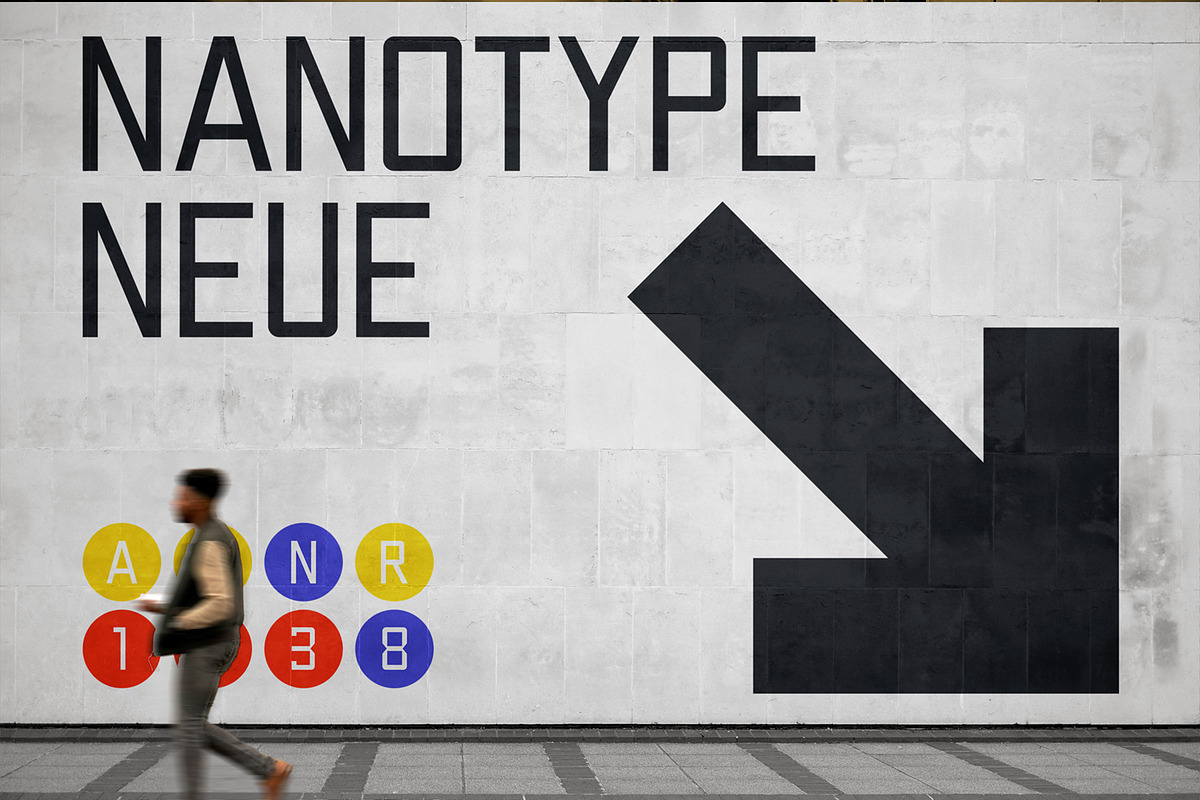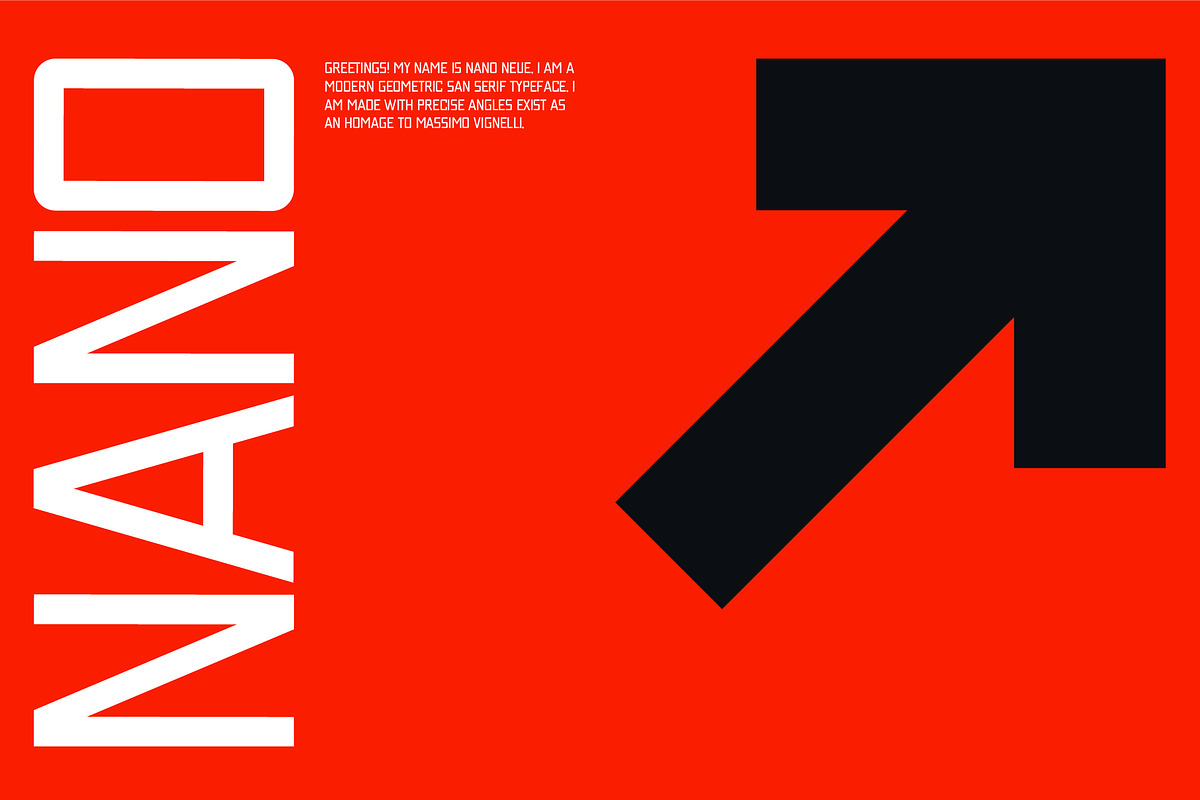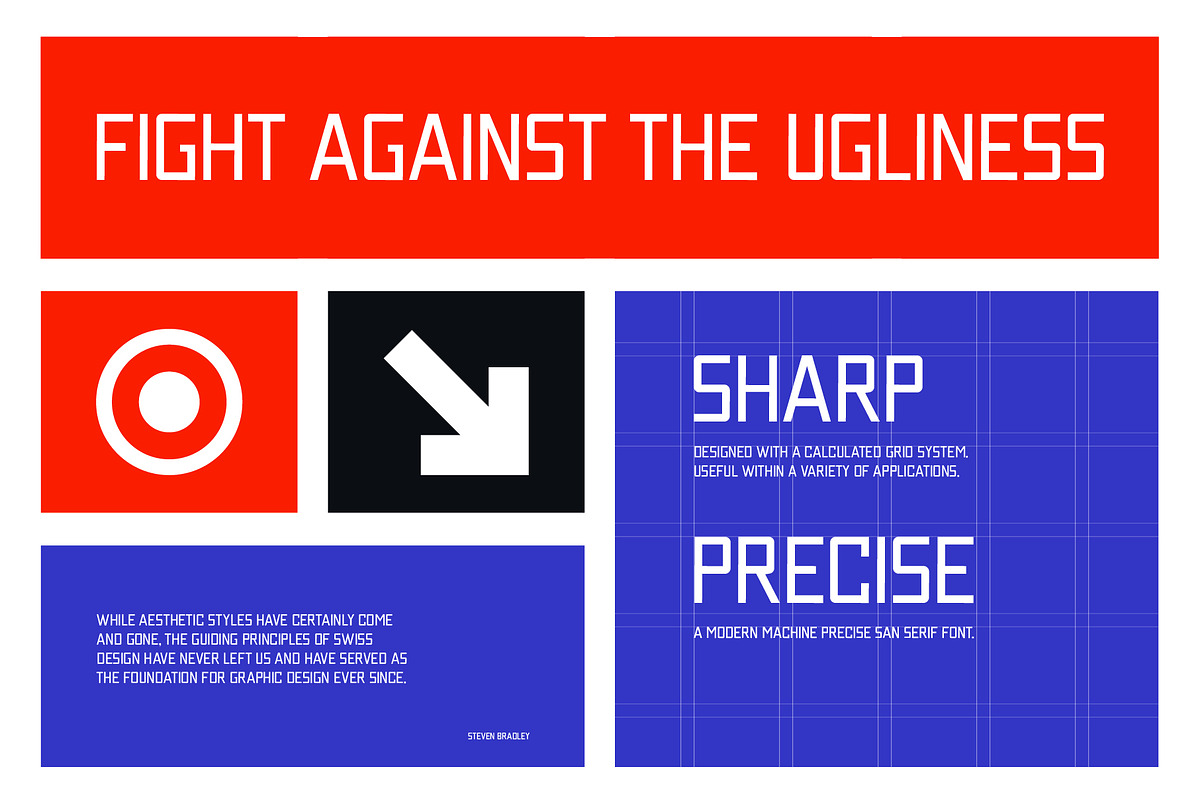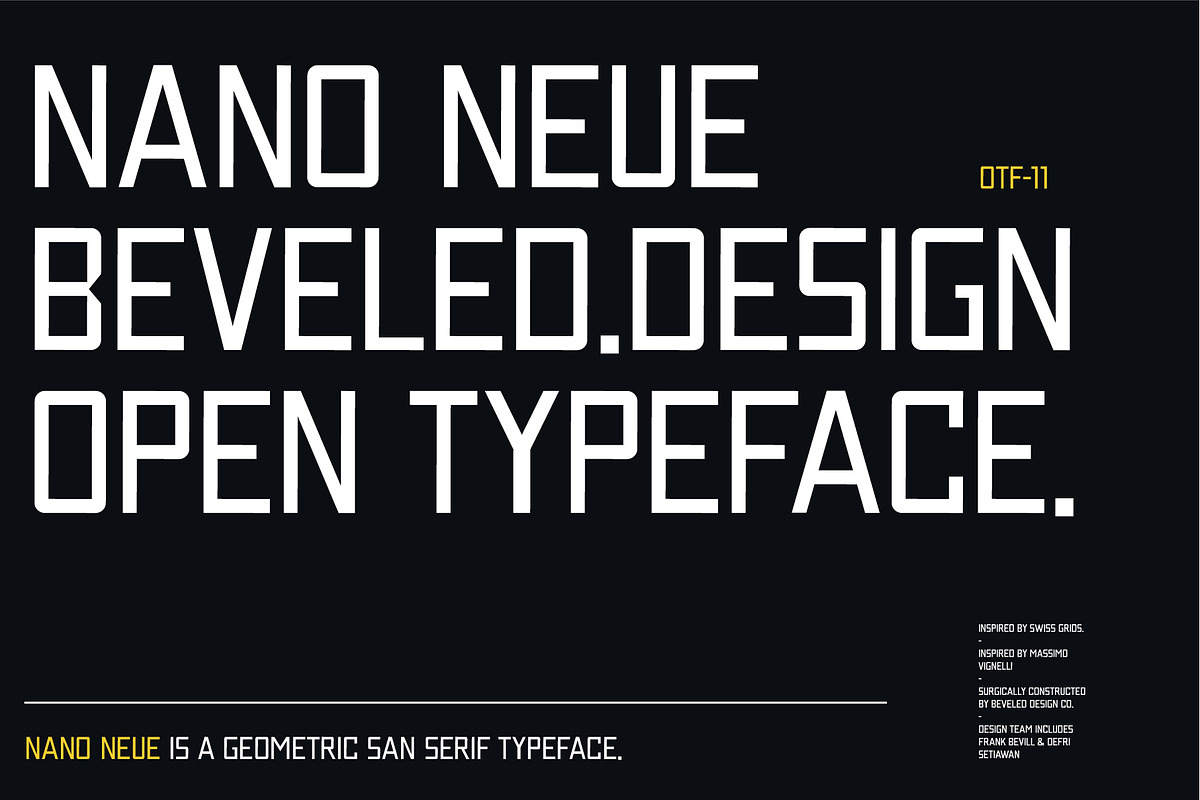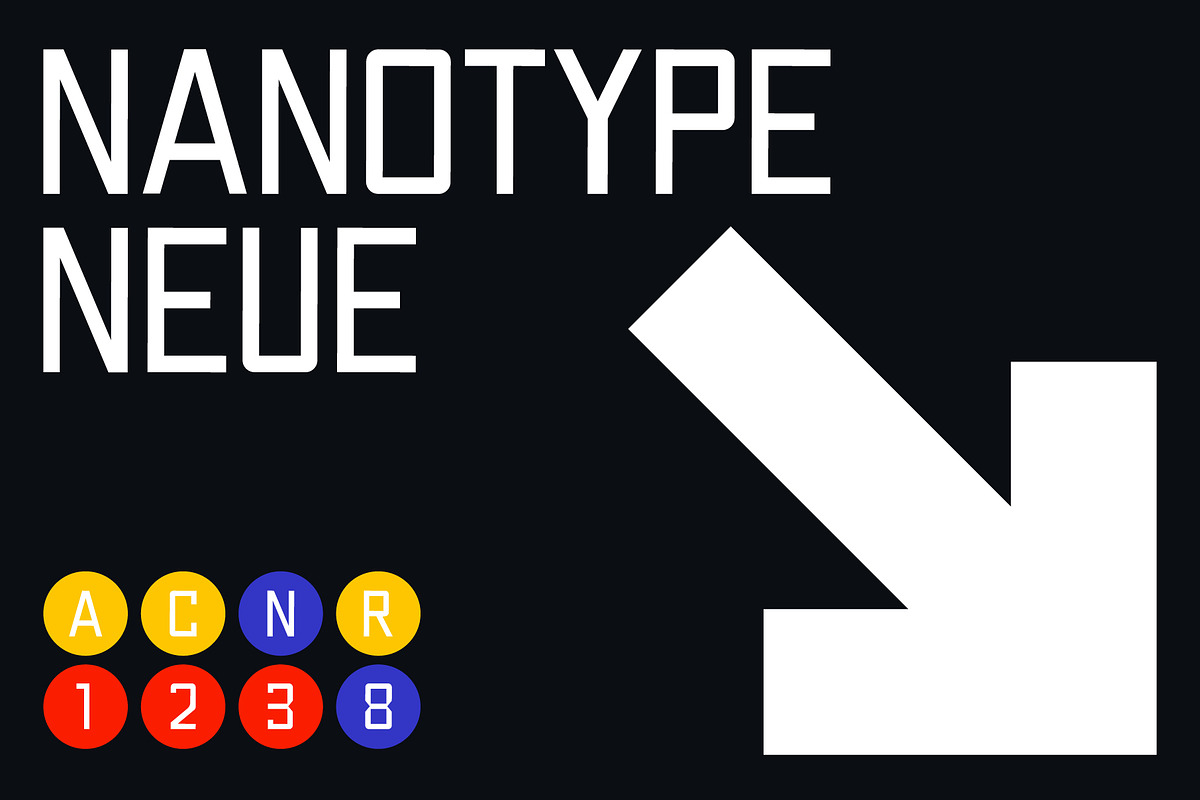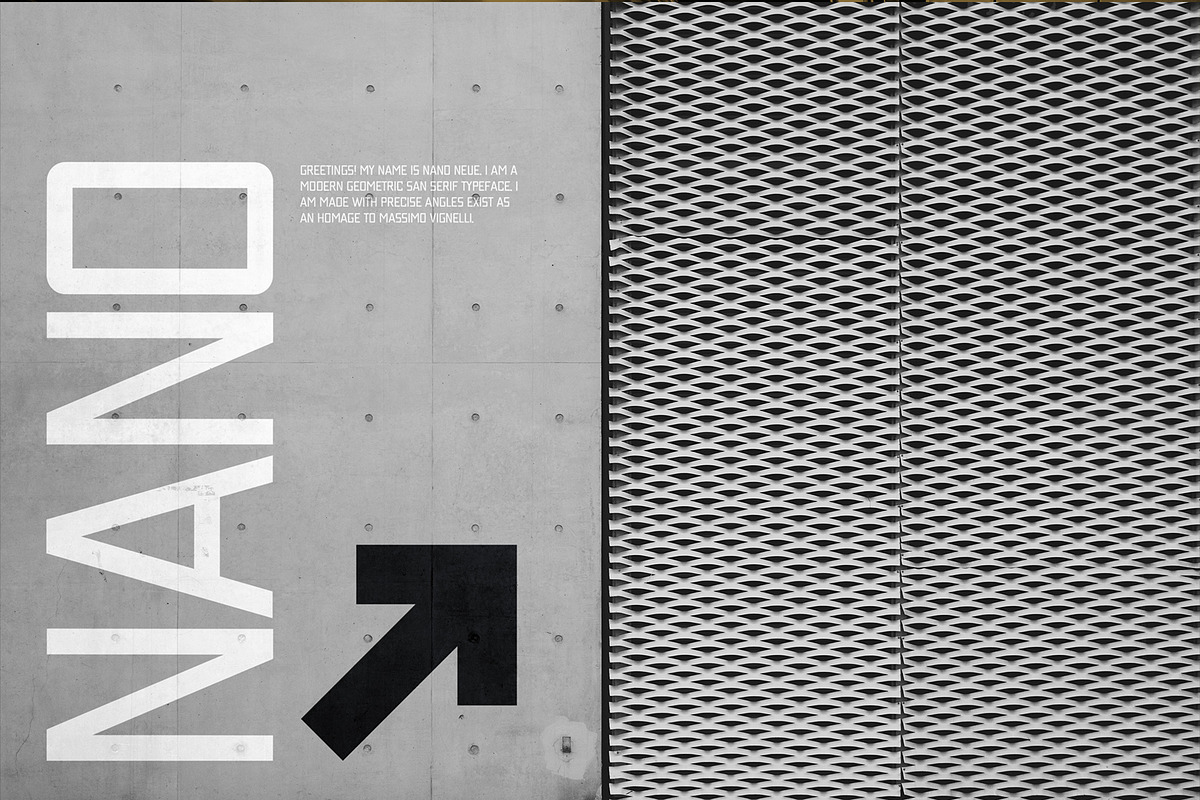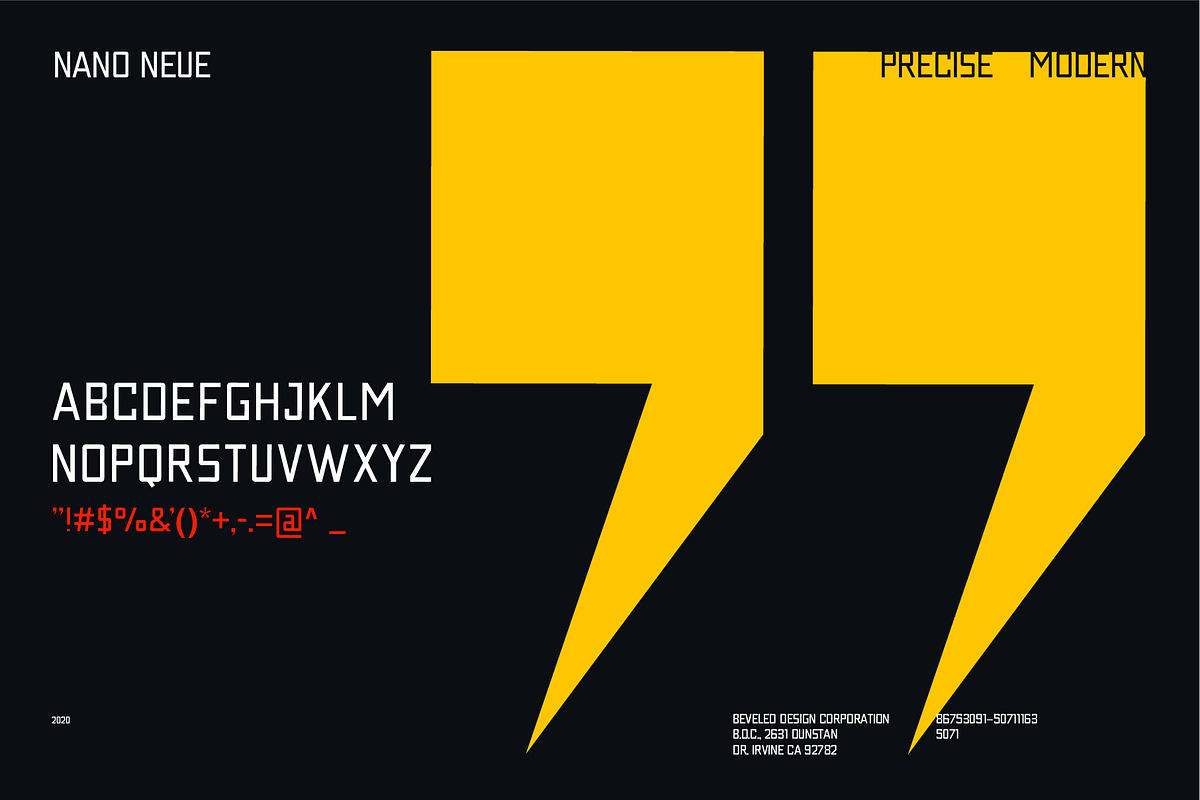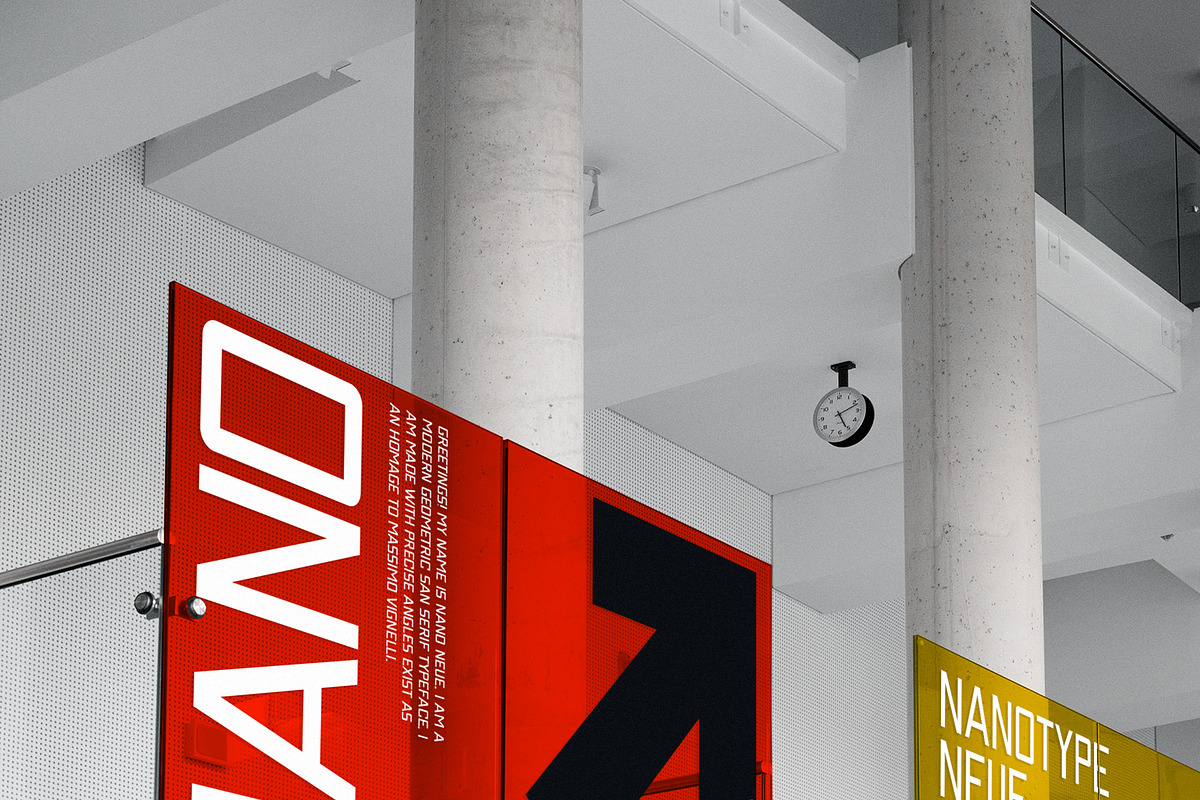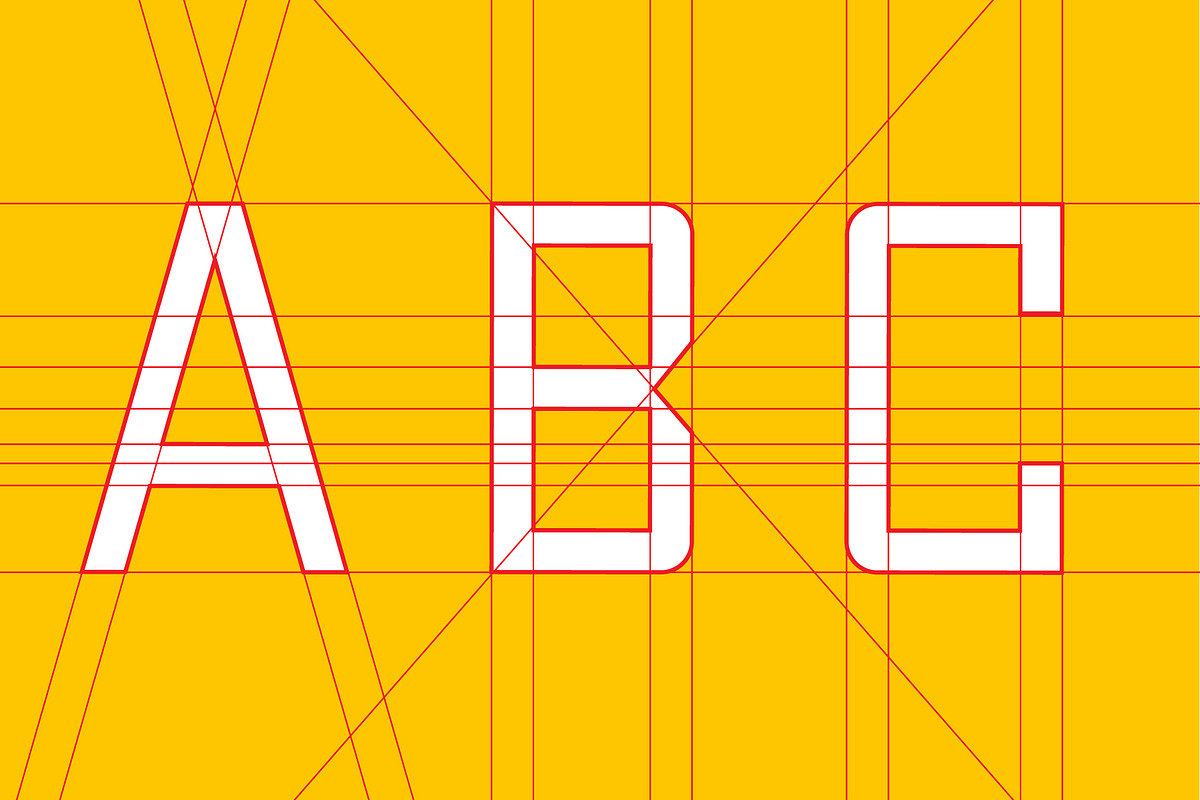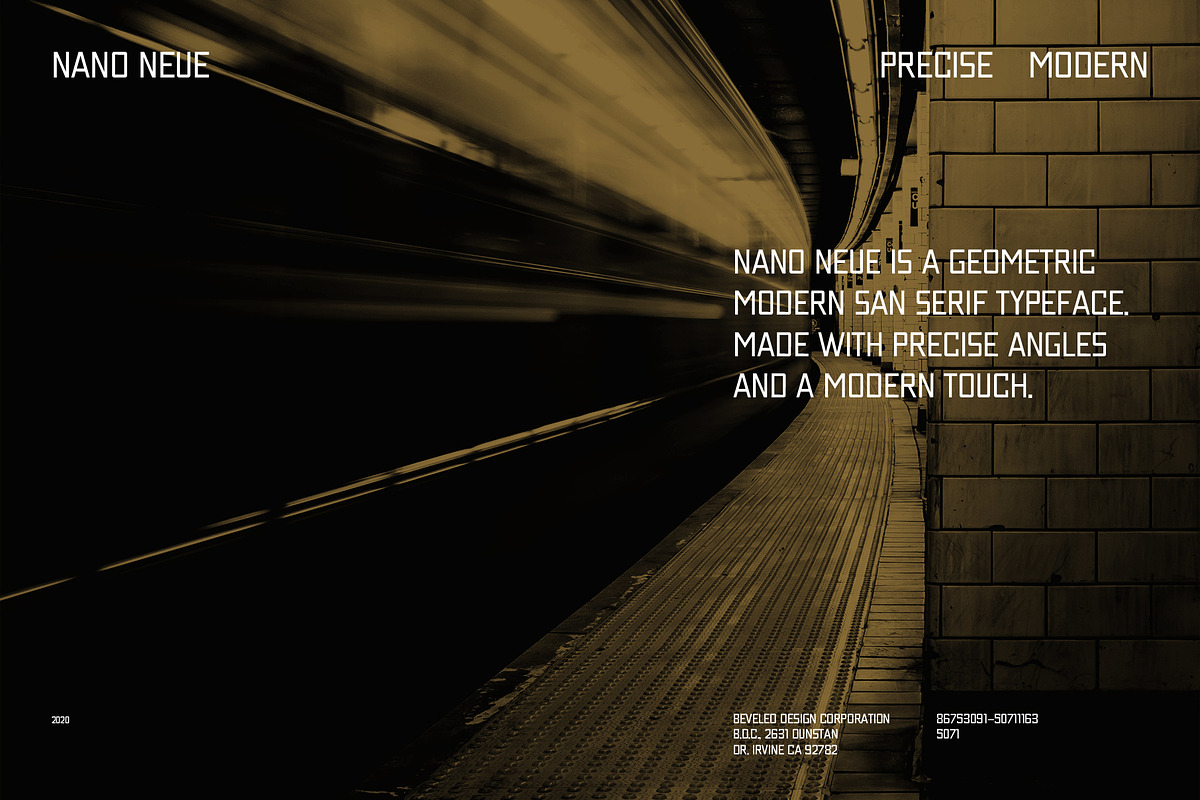
Nano Neue | Geometric San Serif
— Modern / Precise / Sophisticated —
Nano Neue is a modern and sophisticated san serif. Inspired by Swiss Design and the works of designers such as Massimo Vignelli. It’s precise and uncompromising style is felt through the controlled and measured letterforms with modern finesse. A consistency of monolithic lines and curves. Each letter can stand on its own, sophisticated and modern in their own right.
Nano Neue includes a variety of features.
- 18+ Glyphs
- Monolithic line weights
USE
Nano Neue works great in branding, logos and way-finding projects. The versatile style gives credence to a full range of styles to implement Nano Neue within.